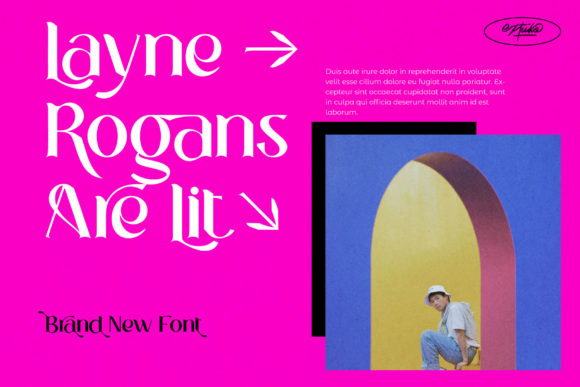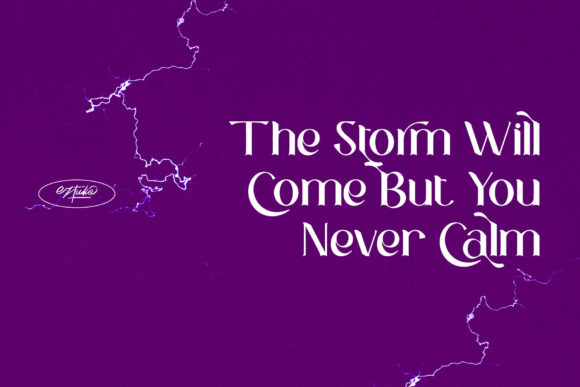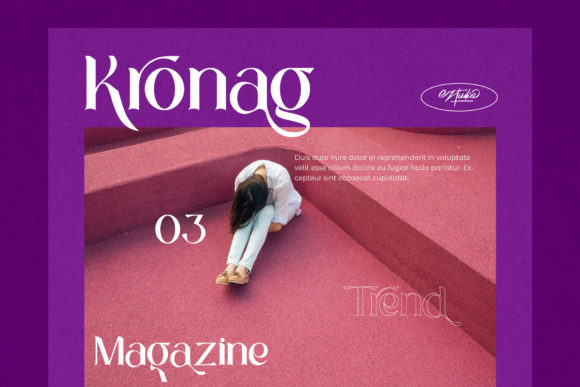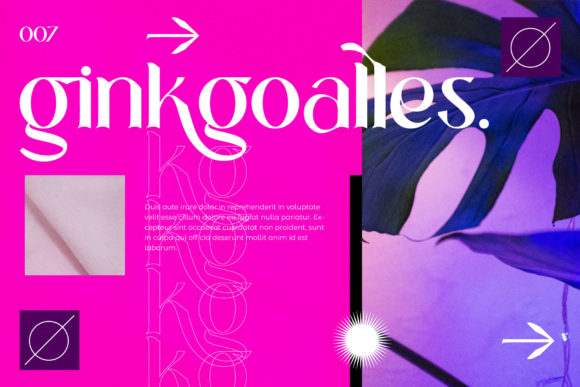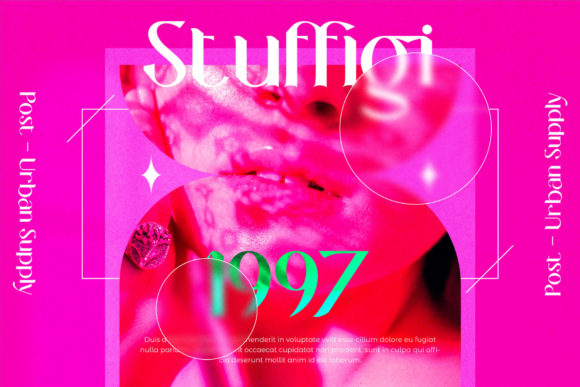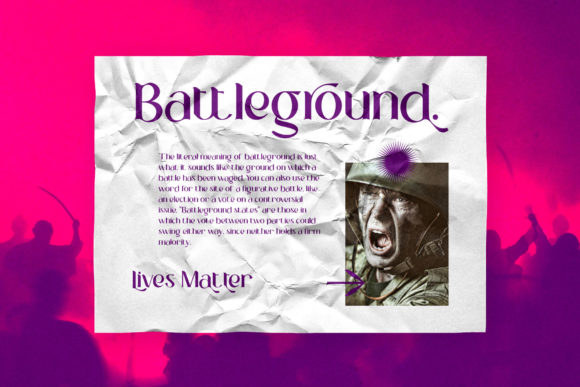
Introduction to Layne Rogan Font
As a designer, you’ve probably experienced that moment when you’re stuck on a project and just can’t seem to find the right font to match your vision. The perfect font can make all the difference in bringing your creative project to life. For those looking for a chic and trendy display font, the Layne Rogan Font is an excellent choice.
This modern font is perfect for designers who want to add a touch of sophistication to their designs. With its classy and elegant look, the Layne Rogan Font is ideal for logos, branding, invitations, stationery, and even social media posts. Plus, its high-quality design makes it a valuable resource for any designer looking to elevate their work.
Key Features of Layne Rogan Font
- The Layne Rogan Font is a high-quality design resource suitable for creative projects, offering a unique and elegant style.
- Layne Rogan Font is a versatile design resource, ideal for use in a variety of creative projects, including branding, packaging, and advertising materials.
- This font’s unique characteristics make it an excellent choice for designers looking to add a touch of elegance and sophistication to their designs.
Honest Review: Layne Rogan Font
I recently stumbled upon the Layne Rogan Font, and I must say it’s been a game-changer for my design projects. This free download has been a valuable addition to my design resource library, and I’m excited to share my thoughts on it.
Here are the things that work well: ✨
- High-quality design: The Layne Rogan Font is sleek and modern, making it perfect for creative projects that require a touch of sophistication.
- Limited font variations: While the font itself is great, I wish there were more variations available to choose from.
Overall, the Layne Rogan Font is a solid addition to any designer’s library. With its high-quality design and transparent background, it’s a great choice for creative projects. While it’s not perfect, I would definitely recommend it to fellow designers looking for a reliable design resource.
The Layne Rogan Font is commonly used in creative projects, such as branding, marketing materials, and web design. It’s also used in graphic design, illustration, and typography projects. Use it to add a touch of elegance and sophistication to your designs.